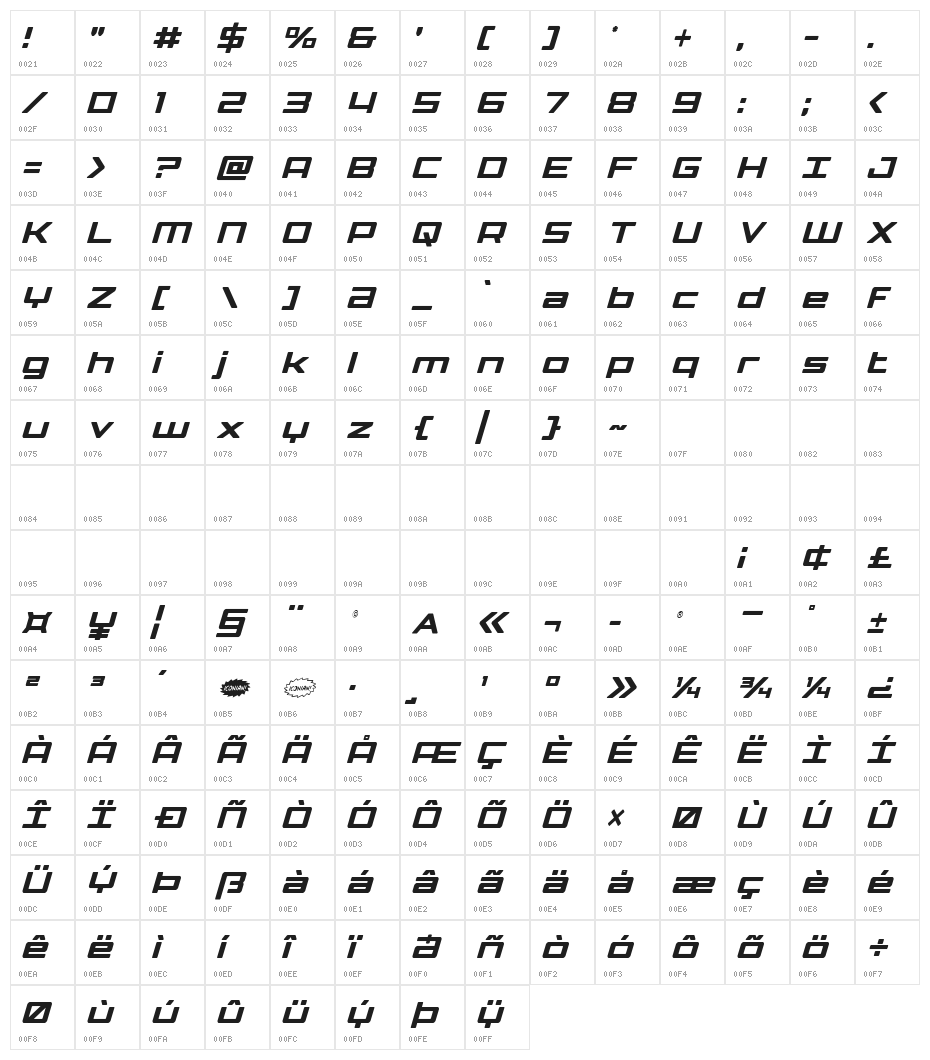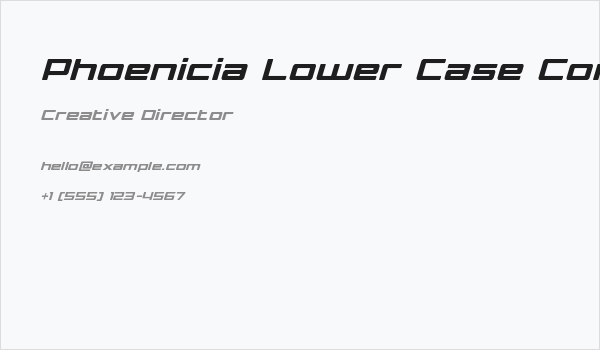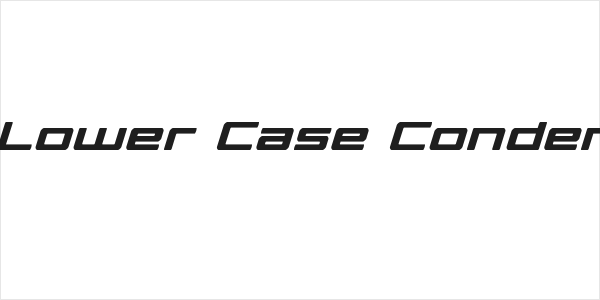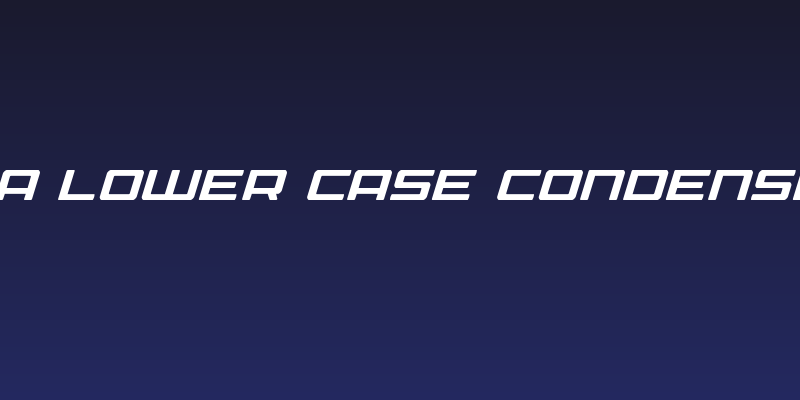
Phoenicia Lower Case Condensed Italic Font
Phoenicia Lower Case Condensed Italic Description
This font features a sleek, modern design with a condensed and italicized style. The characters are slightly slanted, giving a dynamic and forward-moving appearance. The strokes are consistent in weight, providing a uniform look across all characters. The uppercase letters are bold and assertive, while the lowercase letters maintain a similar style with a slightly softer touch. The numerals are clear and easily distinguishable, making them suitable for various applications. Special characters are well-defined, maintaining the overall aesthetic of the font. The condensed nature of the font allows for efficient use of space, making it ideal for headlines or areas where space is limited.
| Proposed Projects | Ideal for branding, advertising, and editorial design where a modern and dynamic look is desired. |